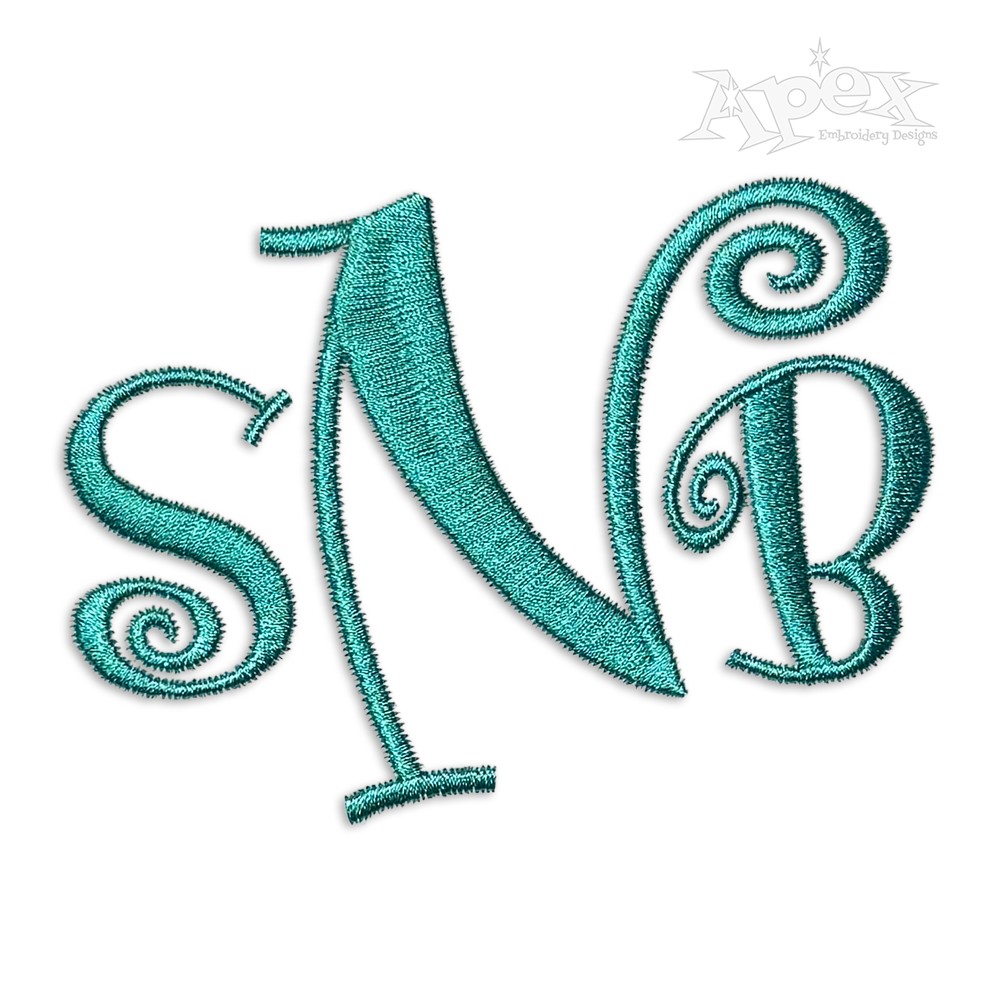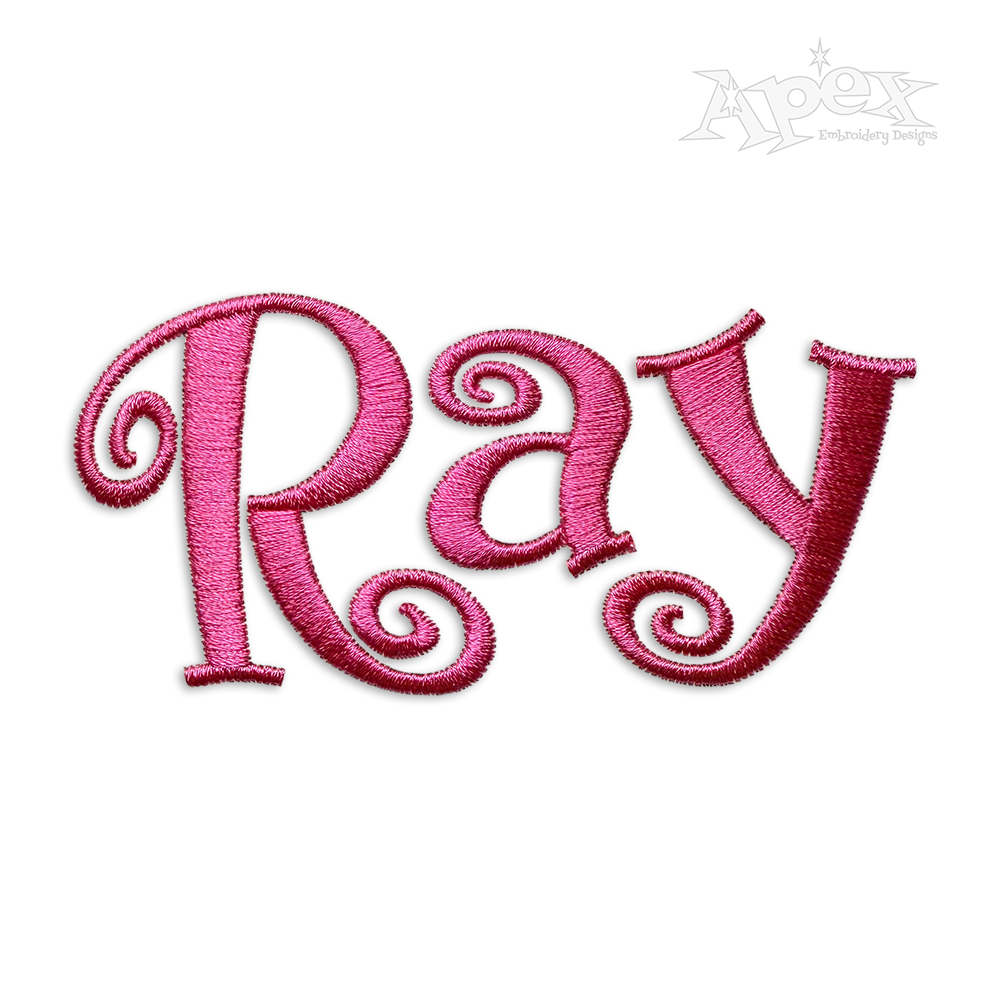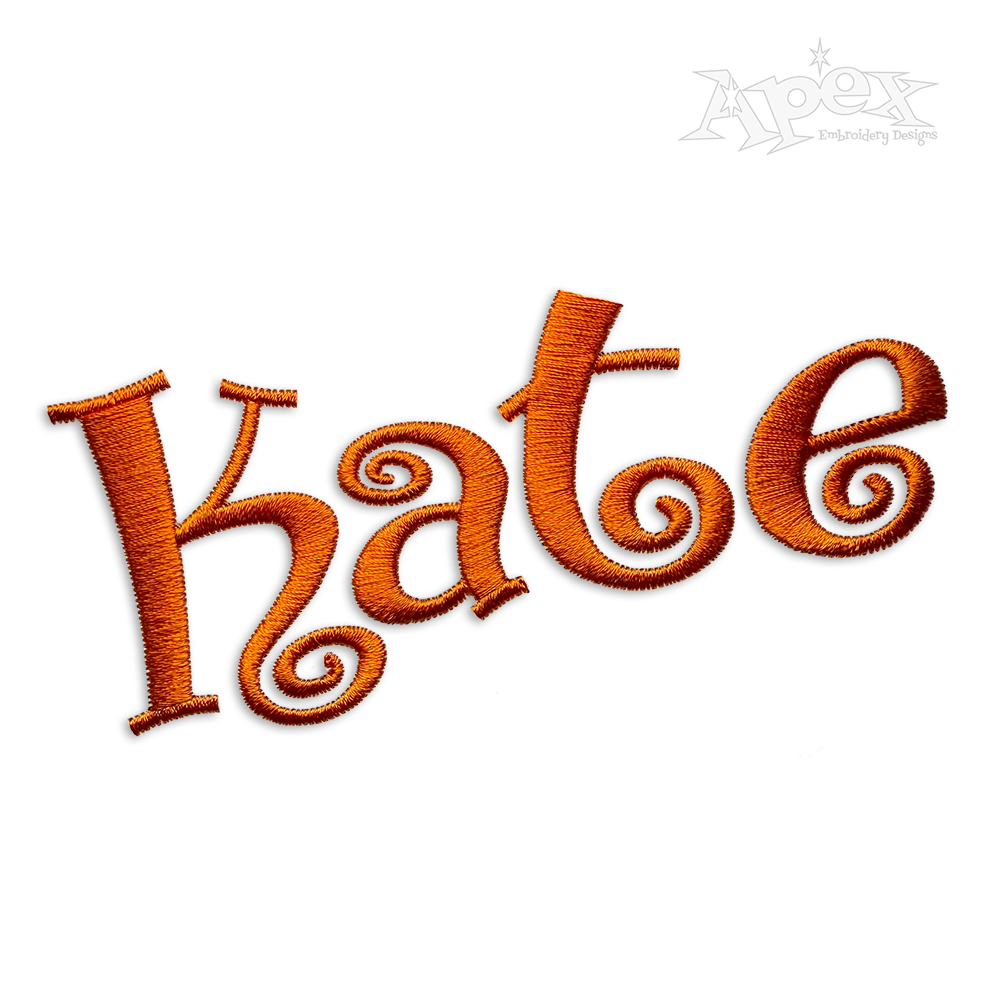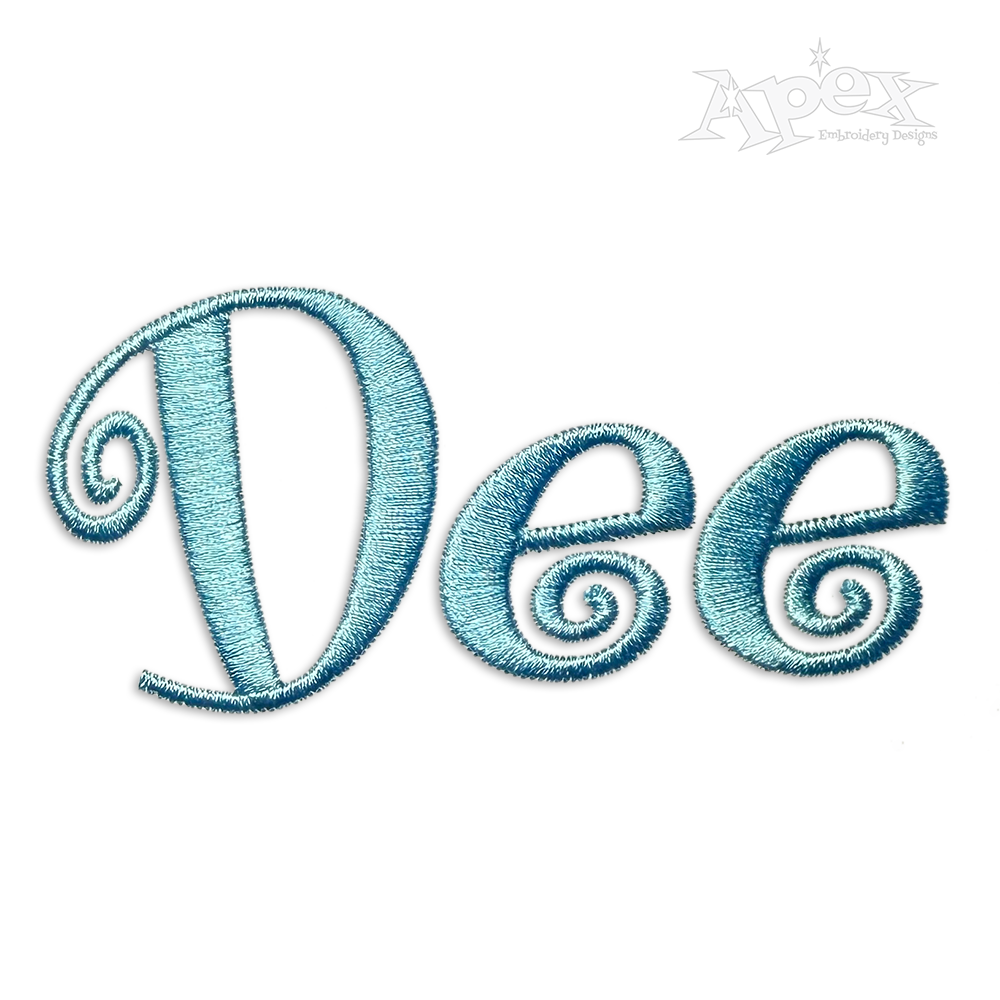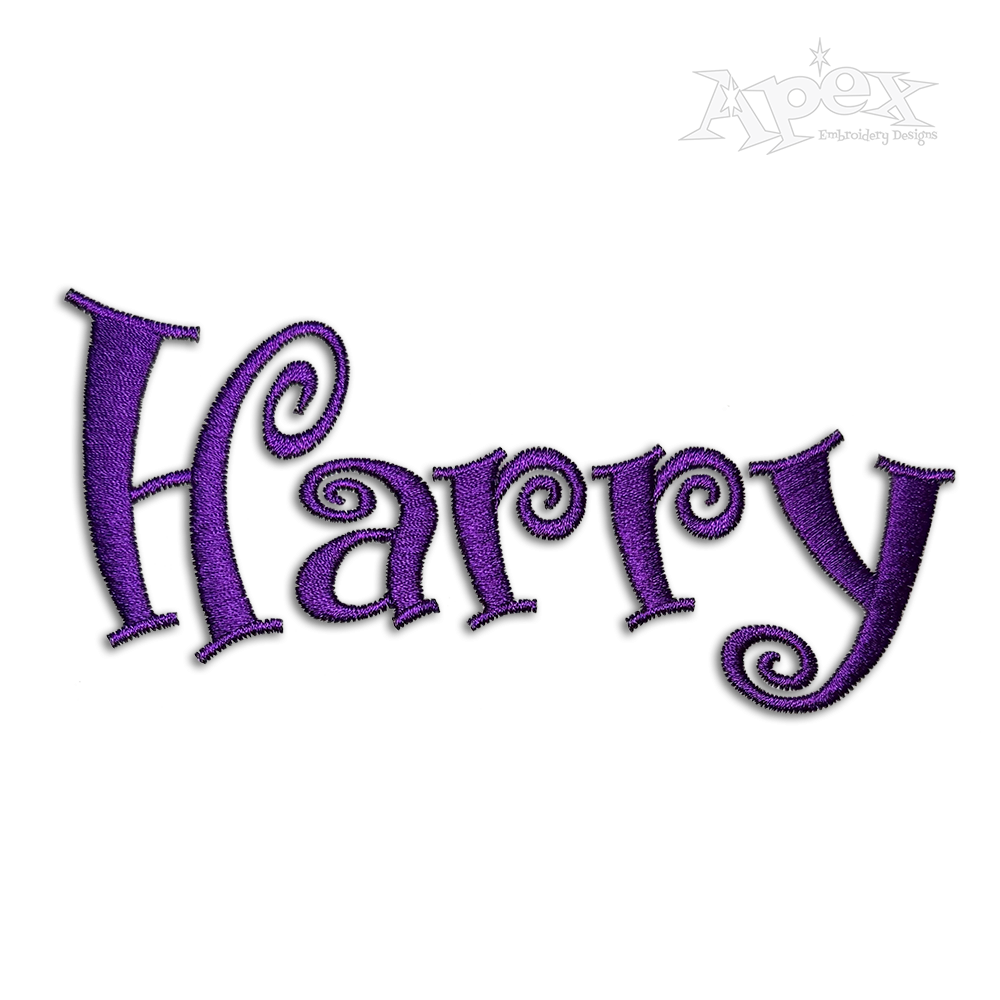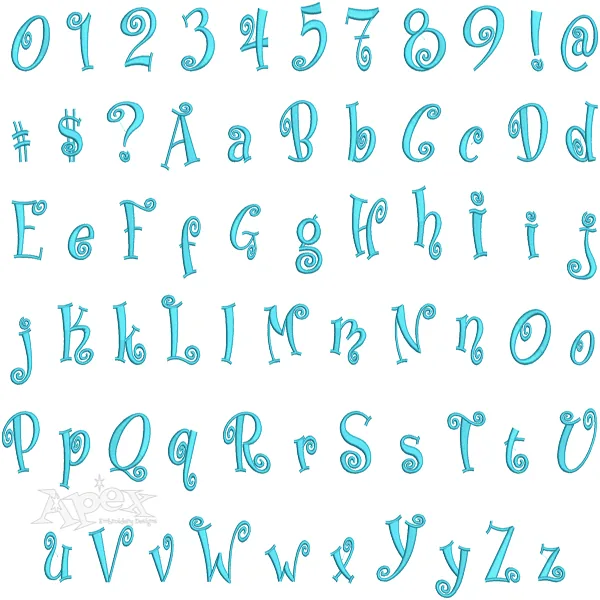
Boingo Embroidery Font
Every curve in the Boingo Embroidery Font dances with an infectious, lighthearted joy. Designed for creators who cherish animated charm and spirited style, this playful alphabet transforms simple typography into an artistic celebration. From the bouncy rhythm of the letterforms to the springy coiled flourishes at every terminal, Boingo captures an irrepressible storybook personality. Under the needle, these sculpted lines blossom into vibrant satin stitches that bring custom monogramming to life with distinct artisan warmth.
Project Ideas for Boingo
Boingo brings an upbeat, handcrafted aesthetic to textiles that deserve a lively, personalized touch:
- Bespoke Boutique Children's Wear: Stitch sunny personalized names across corduroy pinafores, knit cardigans, and toddler sunsuits.
- Heirloom Nursery Essentials: Accentuate plush baby quilts, waffle-weave stroller blankets, and pillow shams with cheerful script that grows alongside little ones.
- Personalized Canvas Beach & Resort Totes: Add an energetic monogram to heavy-duty canvas boat bags, makeup pouches, and weekend duffels.
- Celebration Table Linens: Elevate birthday party runners, playful cocktail napkins, and holiday place settings with a joyful burst of color and form.
- Handmade Gift Ensembles: Pair personalized robes, custom zipper pouches, and embroidered sleep masks for a truly unforgettable gift basket.
To let Boingo?s curly silhouettes shine at their absolute best, consider these placement choices:
- Center Chest: The 2.5-inch scale creates an eye-catching focal point centered on crewneck sweatshirts, child sweaters, and oversized tees.
- Corner Diagonal: Angle a 1.5-inch initial on cloth napkins or tea towels roughly 1.5 inches inward from the corner hem for a balanced, modern finish.
- Pockets & Flaps: Position the 1.5-inch lettering horizontally across breast pockets, diaper bag flaps, or denim jacket yokes to keep the curls crisp and contained.
- Wreath & Frame Centers: Frame a singular 2.5-inch uppercase letter within botanical or circular borders to create a boutique-style medallion.
Boingo Craft & Letterform Details
Translating curly, swooping hand-drawn letterforms into machine embroidery demands precision digitizing. Boingo is meticulously engineered to prevent density crowding in tight loops while preserving the full, rounded look of each swirling serif. As the needle traverses the contours, the stitch angles fluidly rotate along every bend, ensuring optimal sheen and reflective lightplay across the satin column.
Specialized underlay paths lay down a firm structural foundation, securing fabric grain and countering push-and-pull distortion before the top stitching takes place. The result is a crisp, dimensional stitchout where looping finials remain circular, stems stay upright, and connected lowercase joins flow organically across the hoop. Boingo is as dependable in production as it is captivating to the eye.